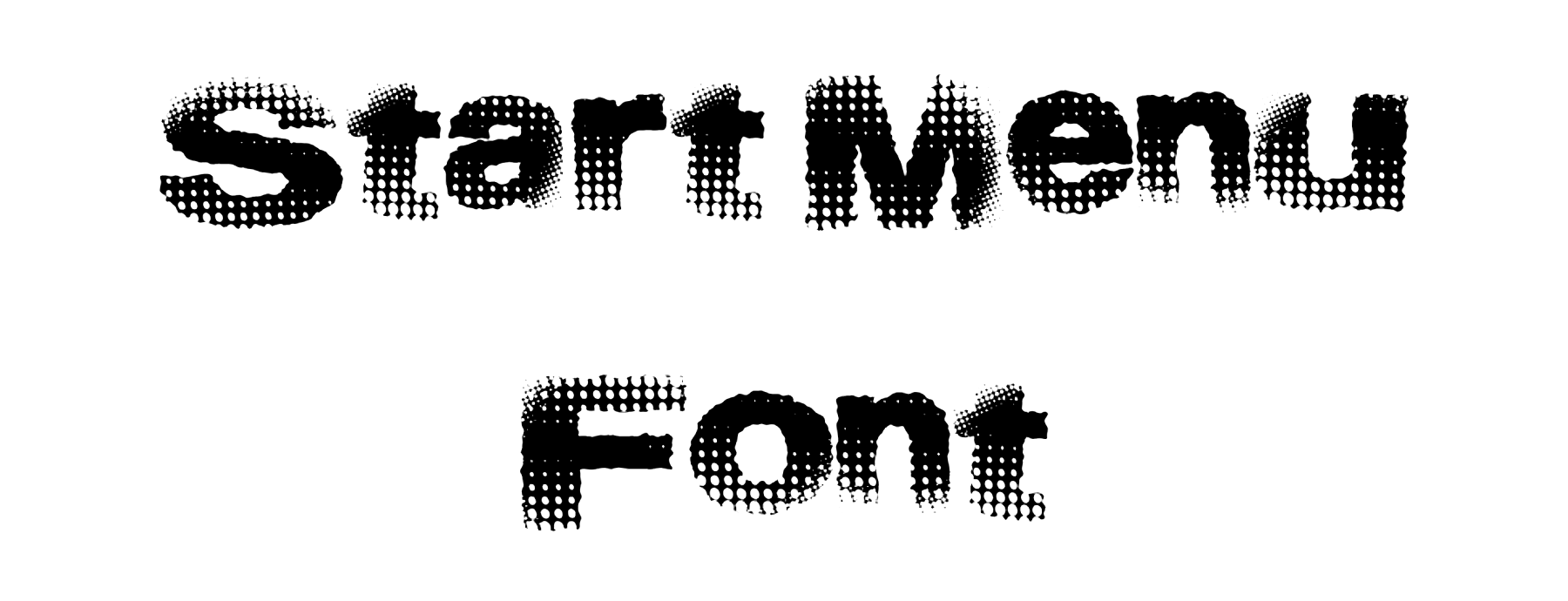
Start Menu
Start Menu is a fancy font designed by Xerographer Fonts Max Infeld and published by Xerographer Fonts (2013). Bold and full of character, it's built to stand out rather than blend in. You can download it for free and test it with your own words in the preview above.
In the notes inside the font file, Xerographer Fonts Max Infeld describes it like this: “Made at Xerographer Studios in San Francisco,CA.”
Start Menu covers the full alphabet in upper and lowercase, plus all ten numbers, so you can set names, dates and prices without switching fonts. Punctuation is limited, so look at the character map if you need a specific symbol. There are no accented letters like é or ñ, so it's best kept to English text.
Start Menu is a natural fit for posters, logos and eye-catching headlines. The file has no kerning data, so in logos and big titles check pairs like AV, To and Wa and tighten the spacing by hand. Use it for one standout word or headline and let simpler fonts handle the rest.